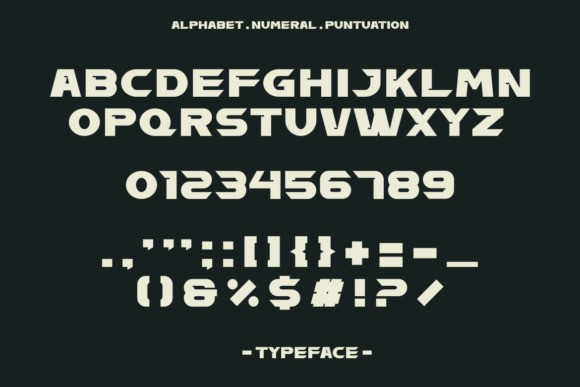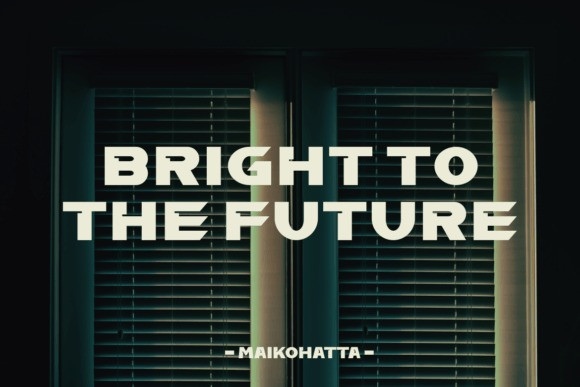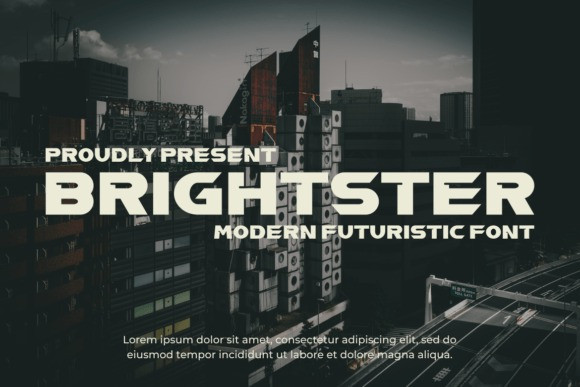
Brightster Font
Brightster Font – Modern Font is a bold and authentic display font. The font is suitable for any branding project like logo, template design, sport, and many more. outstanding in a wide range of contexts.